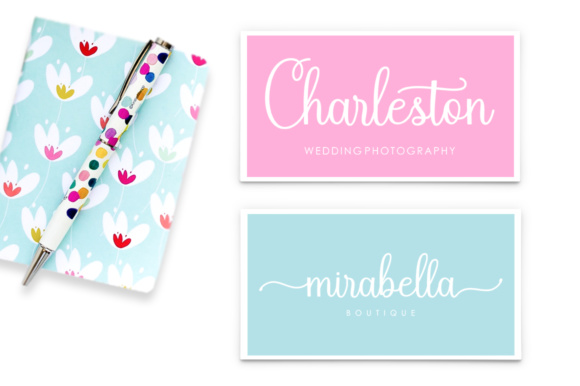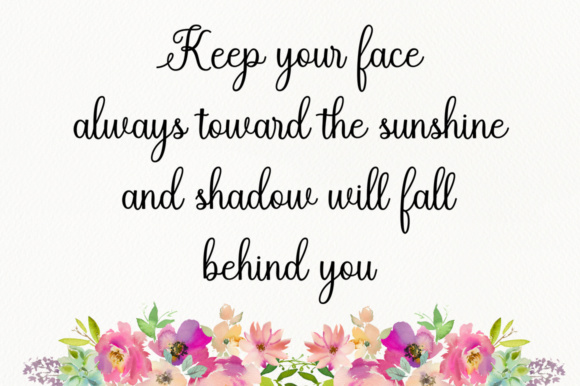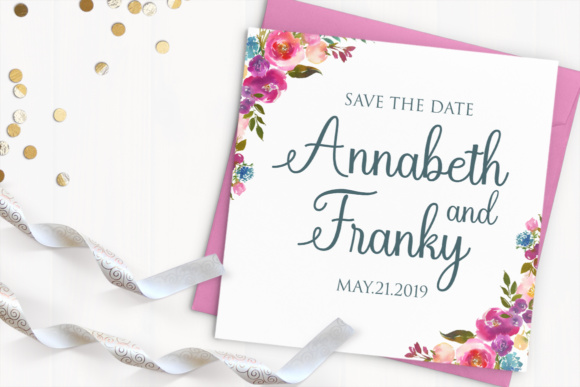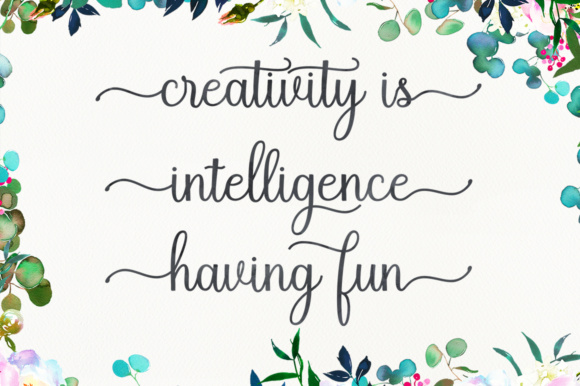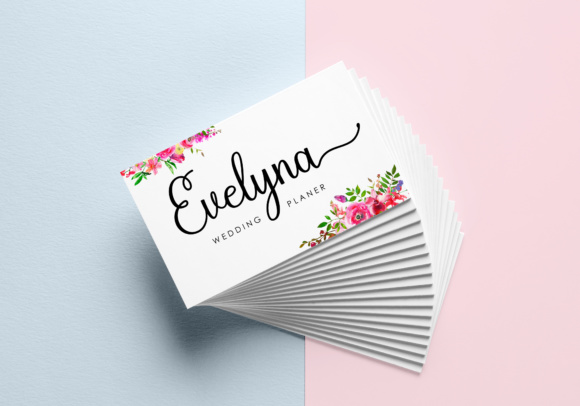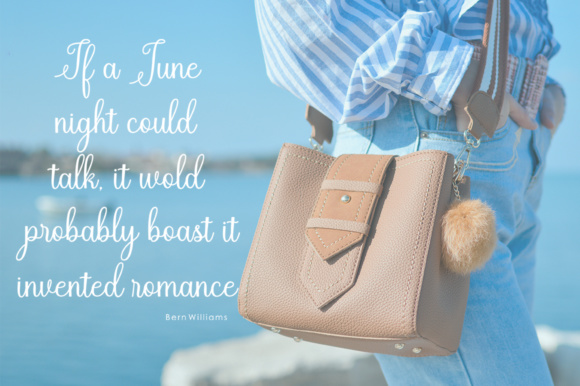
Betrycia Font
About Betrycia Font
Betrycia Script is modern calligraphy script. This font is casual and pretty with swashes and can used for various purposes, excelling most as a display font.